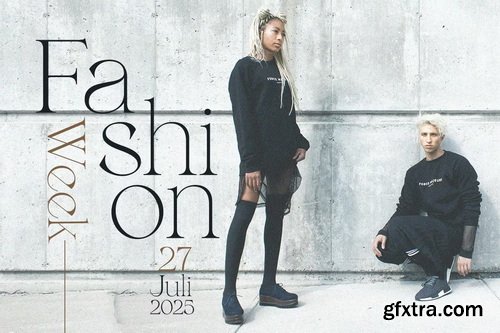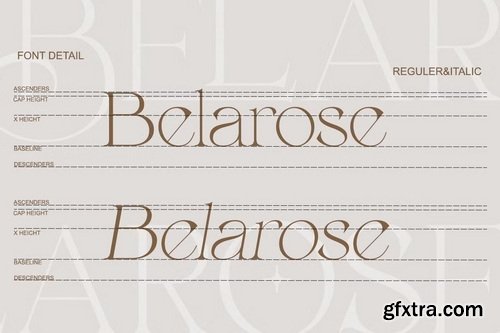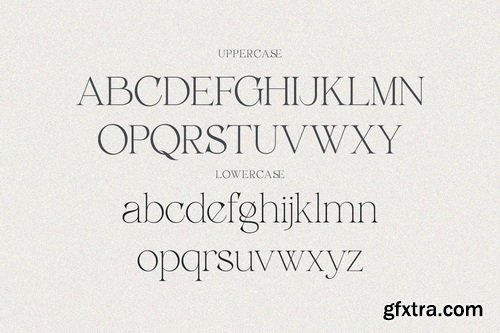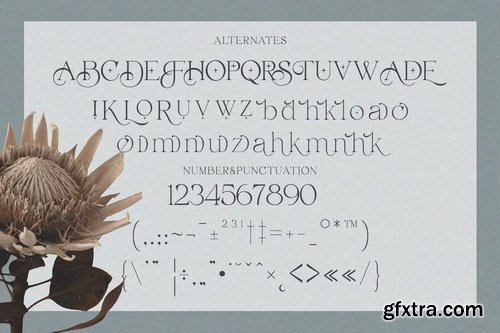
CreativeMarket - Belarose - Modern Elegant Serif
Belarose is a breathtaking modern serif that combines contemporary elegance with timeless grace. Featuring both Regular and Italic styles with premium alternates and ligatures, this font is expertly crafted for luxury branding, high-end logos, refined packaging, and editorial designs that demand both beauty and functionality. With its delicate serifs and flowing italic variant, Belarose offers exceptional versatility for discerning brands. The thoughtfully designed alternates and ligatures allow for exquisite typographic compositions that exude understated luxury.